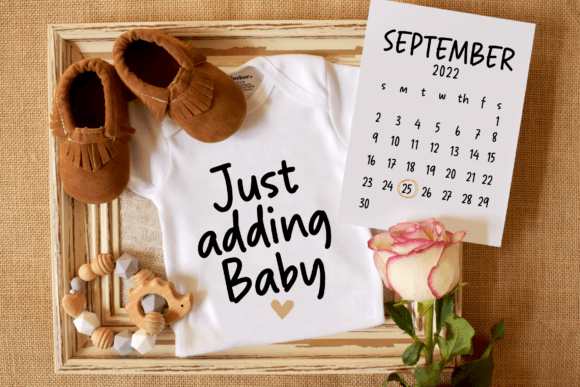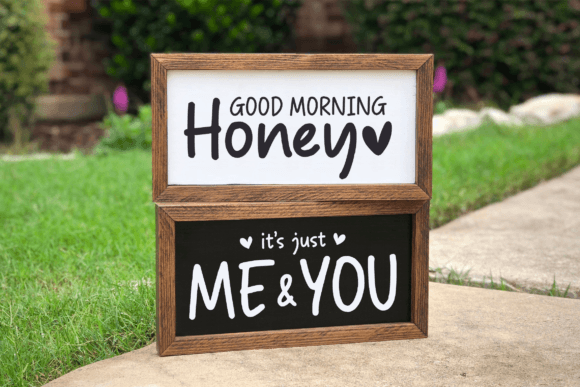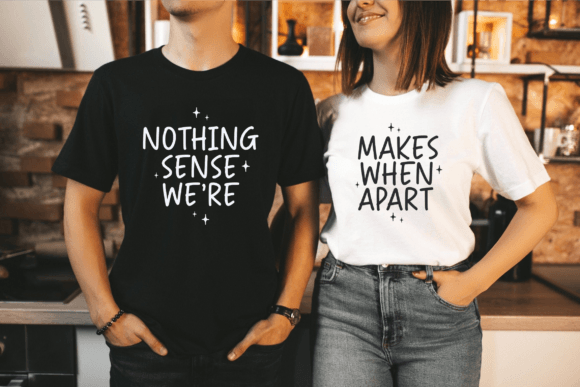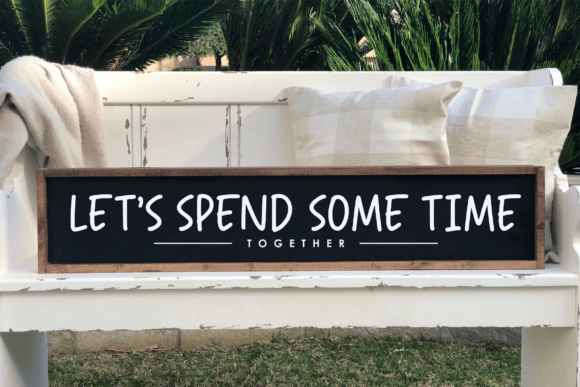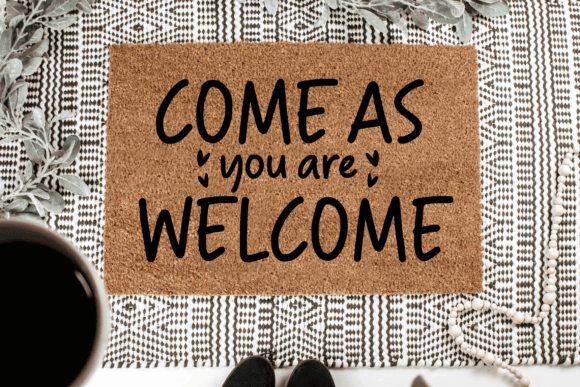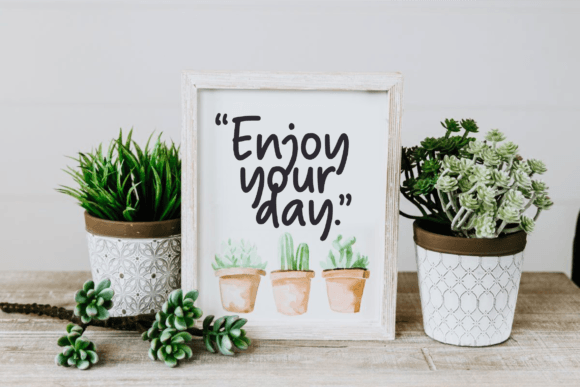
Introduction to Milespink Font
Have you ever found yourself in a creative rut, struggling to express the perfect message for your design project? Perhaps you’re crafting a social media campaign, designing a wedding invitation, or creating a unique product packaging that stands out from the crowd. Whatever your creative endeavor, the right font can make all the difference.
That’s where the Milespink Font comes in – a quirky, handwritten font that adds a touch of personality to any design. Perfect for product packaging, branding projects, magazines, social media, weddings, or simply adding a creative twist to your words, this font is a valuable resource for designers seeking to elevate their designs with a high-quality, unique look.
Key Features of Milespink Font
- Unique and modern design style suitable for a variety of creative projects
Honest Review: Milespink Font
I recently had the chance to work with the Milespink Font, and I must say it’s a great addition to any design resource library. The font offers a unique and playful style that can add a lot of personality to a creative project.
- What works well: ✨ The Milespink Font has a high quality design that makes it perfect for digital projects. The transparent background is also a big plus, allowing for easy customization and blending with other design elements.
However, there are a few limitations to keep in mind. The Milespink Font may not be suitable for formal or professional projects, as it has a more casual and playful feel. Additionally, the font may not be as versatile as some other fonts on the market.
Overall, I’m really impressed with the Milespink Font. It’s a great resource for designers looking to add some creativity and personality to their projects. With its high quality design, transparent background, and free download, it’s definitely worth checking out.
The Milespink Font is a versatile design resource that can be used in a variety of creative projects. Some common use cases include:
- Graphic design projects, such as logos, brochures, and business cards
- Web design projects, such as websites, landing pages, and e-commerce sites
- Print design projects, such as posters, flyers, and invitations
For the best results, use the Milespink Font on a high-quality design with a transparent background. This will allow the font to shine and add a touch of elegance to your design. Additionally, consider using the font in combination with other design elements, such as images and graphics, to create a visually appealing design.